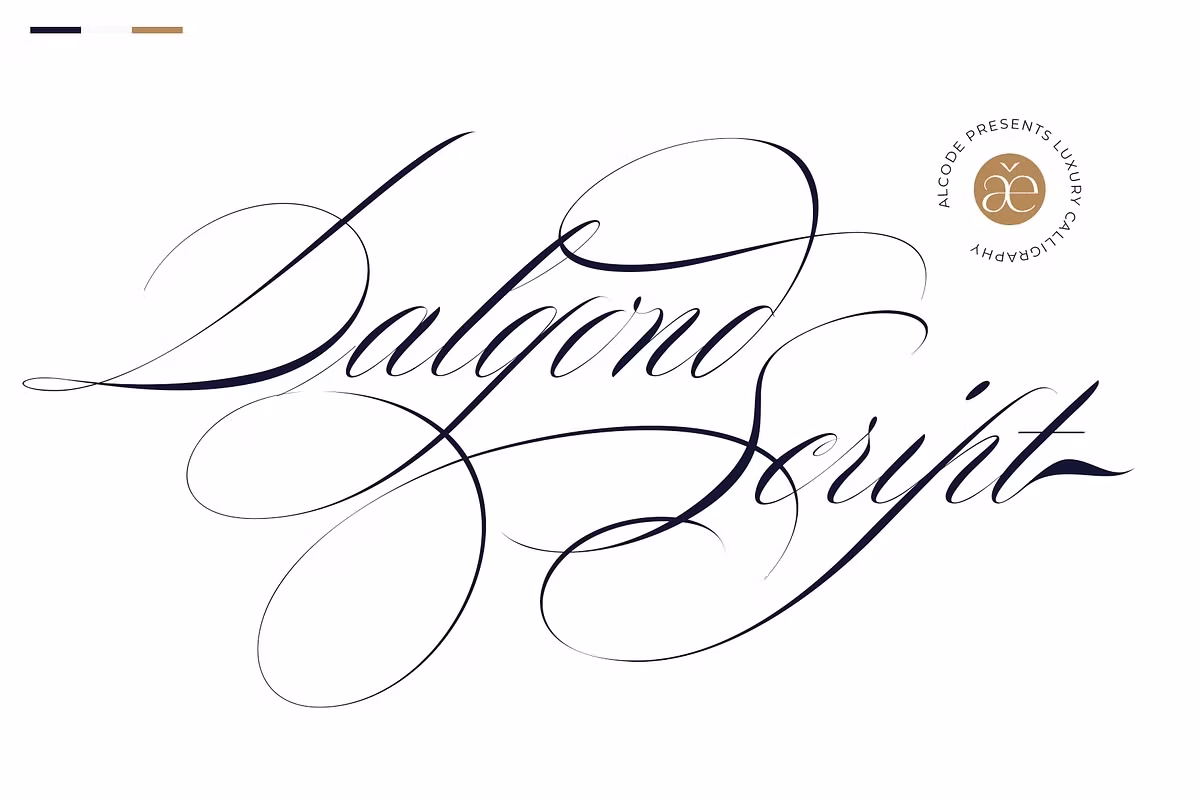
Elegant, flowing, and full of handcrafted charm, Dalgond Script Font Free Download is a beautifully designed script typeface perfect for logos, wedding invitations, greeting cards, social media posts, and branding with a personal touch. Its smooth curves and stylish swashes give your text a graceful and refined look without compromising readability.
Inspired by modern calligraphy, Dalgond brings sophistication and warmth to any design. It’s ideal for projects that need a romantic or artistic vibe, offering both uppercase and lowercase options with plenty of alternates to add flair and uniqueness.